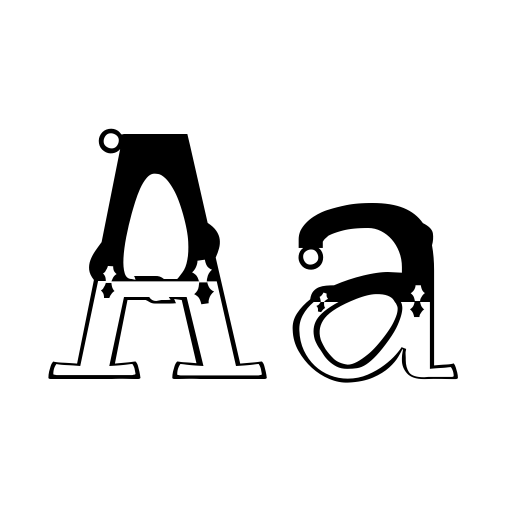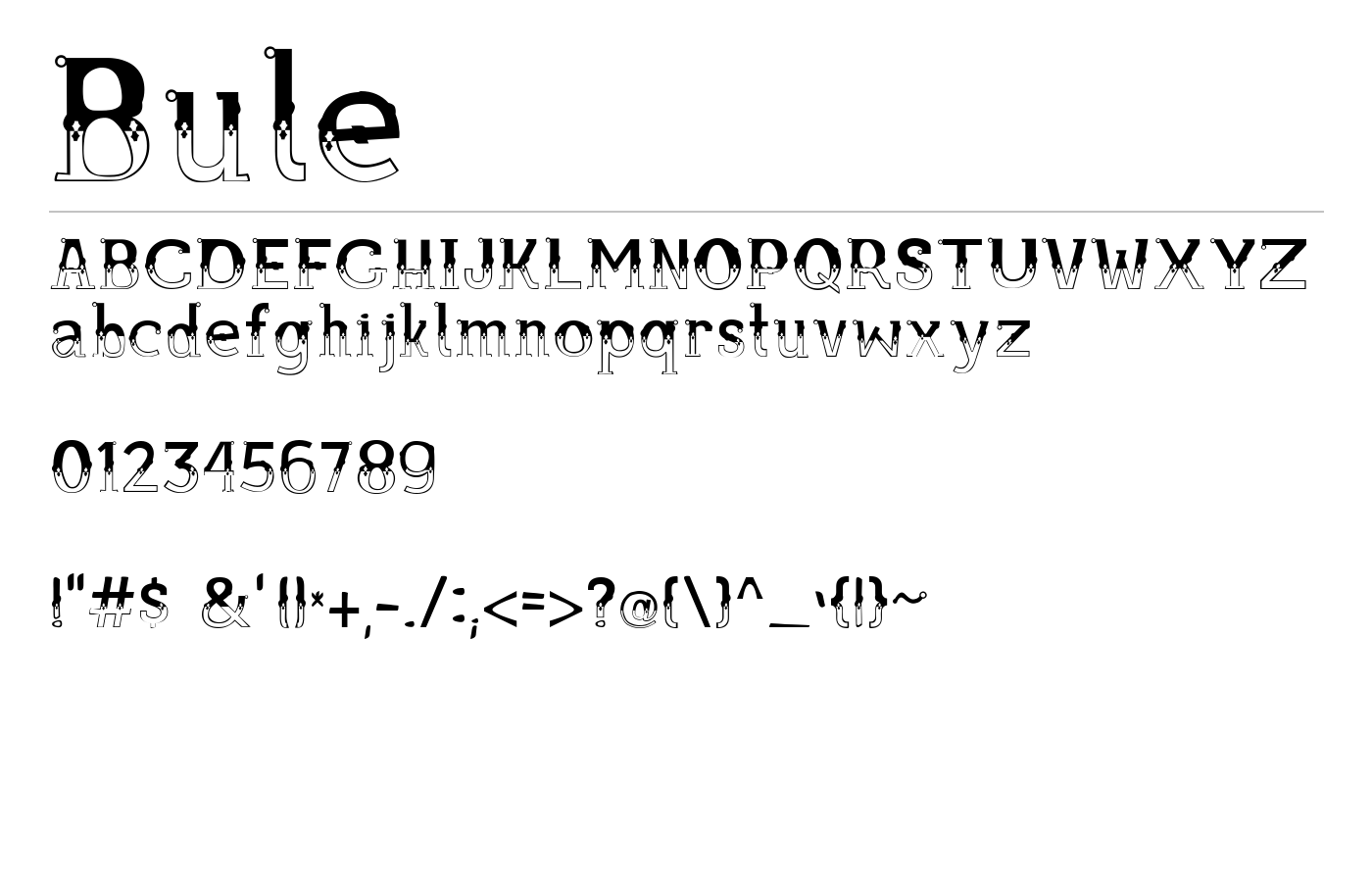
Bule Font is a distinctive slab serif typeface with a vintage, industrial feel, characterized by its strong serifs and medium contrast strokes. Its upright, slightly condensed letterforms with double-story figures and unique details like rounded stroke endings give it a bold yet elegant personality, making it ideal for eye-catching headlines, logos, and packaging that seek a retro yet refined look. This font works best where a mix of classic strength and modern precision is desired, offering a charming balance between tradition and contemporary style.
Bule Font
About Bule Font